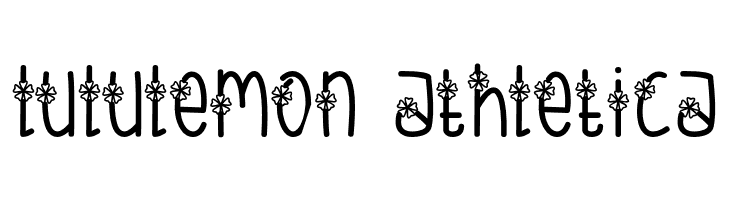
( Fonts by Nur Aisyah Amalia )
A playful, decorative font with flower motifs at the center of each character.
( Fonts by Junie Kim )
A decorative font with floral and vine embellishments for a whimsical, nature-inspired look.
( Fonts by Jose Rimba )
A bold 3D block font with a staircase shadow effect, perfect for dynamic designs.
A bold, geometric font with a futuristic and modern aesthetic.
A bold, decorative font with a hollow interior and geometric elements.
A bold, decorative font with intricate geometric patterns and strong outlines.
( Fonts by Nur Aisyah Amalia )
A playful sans-serif font with paw print embellishments on each character.
A whimsical, hand-drawn font with intricate patterns and playful energy.
( Fonts by Akhmad Mujayyid )
A playful font with arrow-themed characters, offering a dynamic and directional style.
A bold, decorative font with a honeycomb pattern and 3D effect.